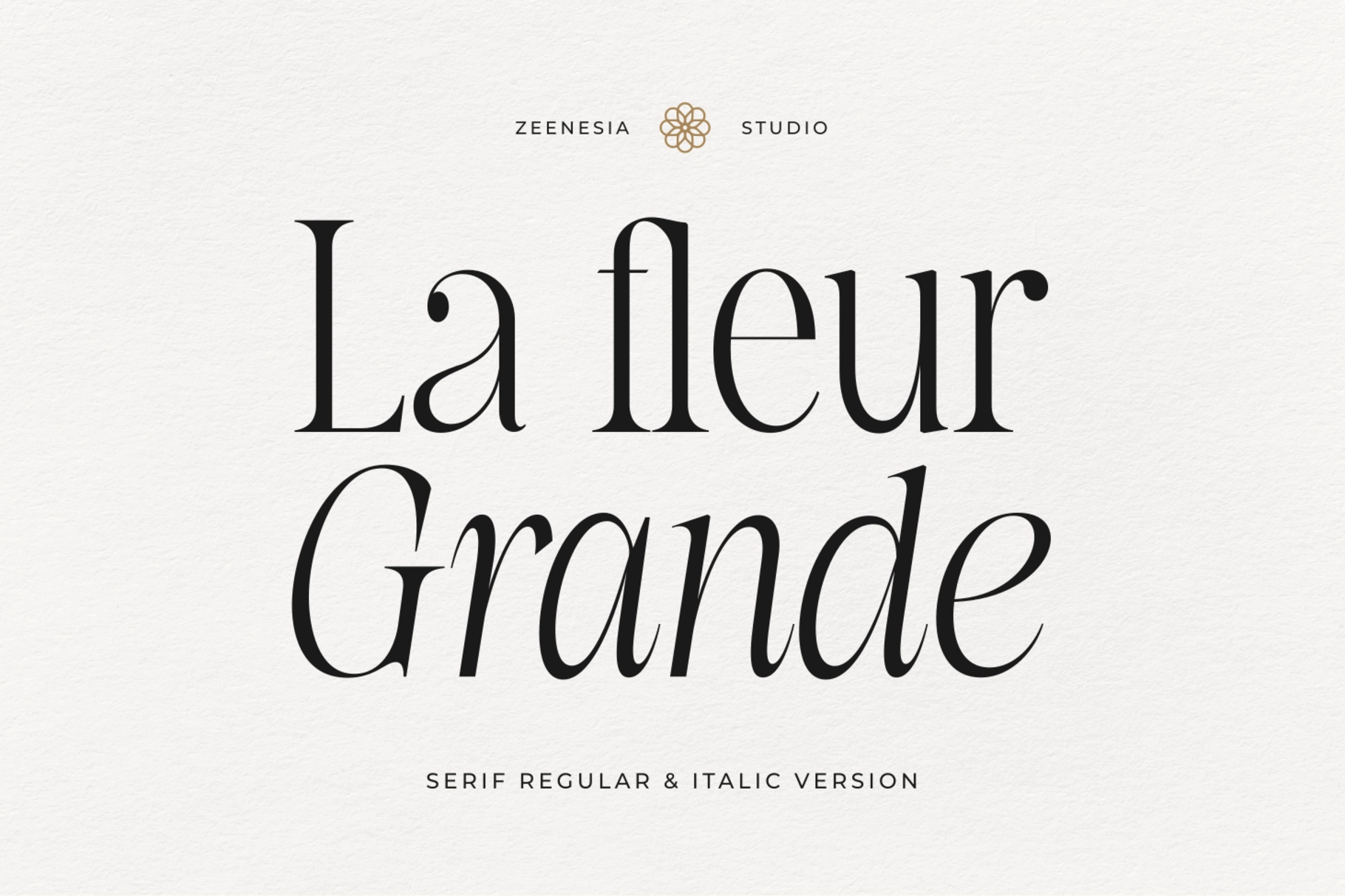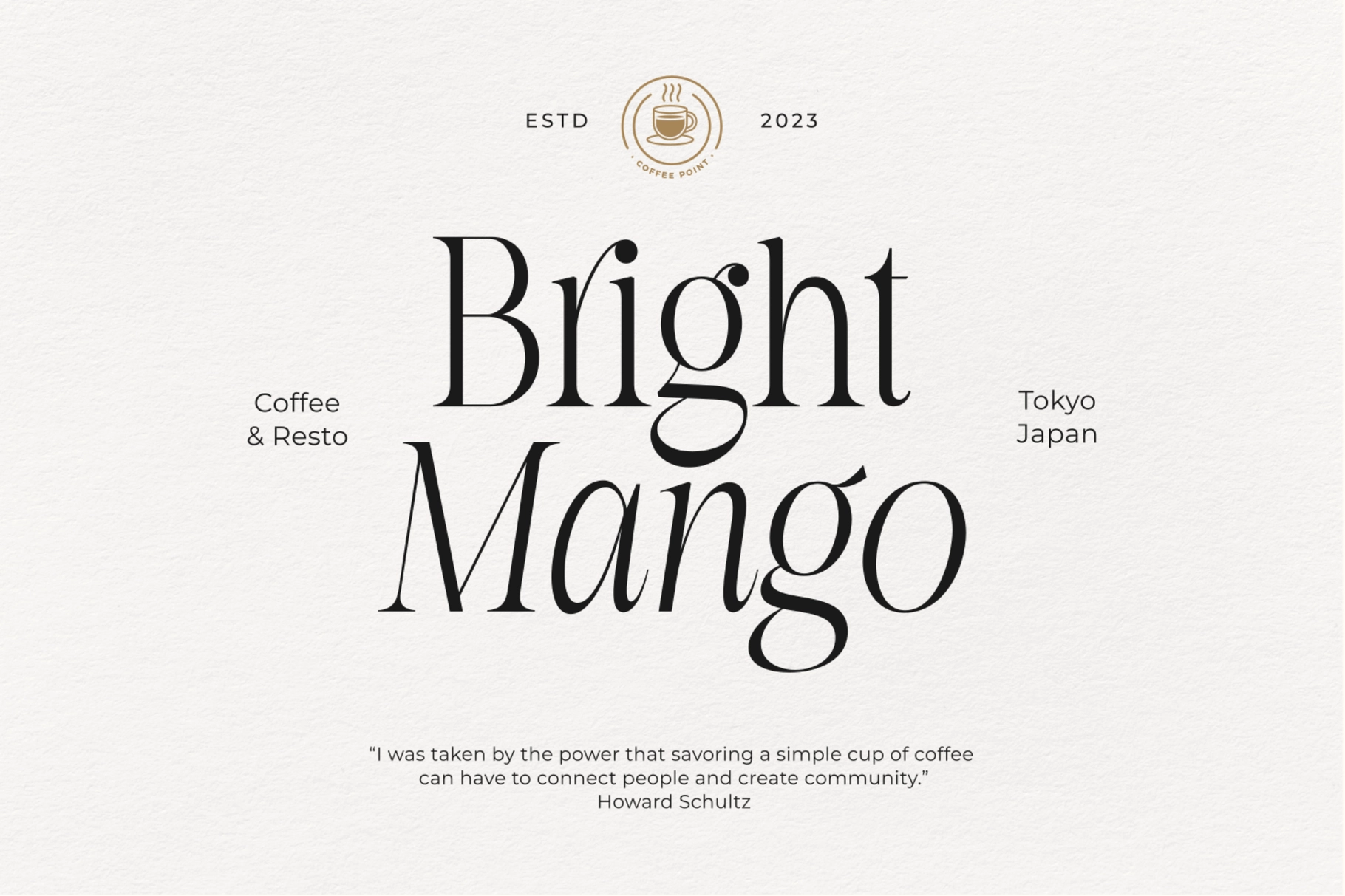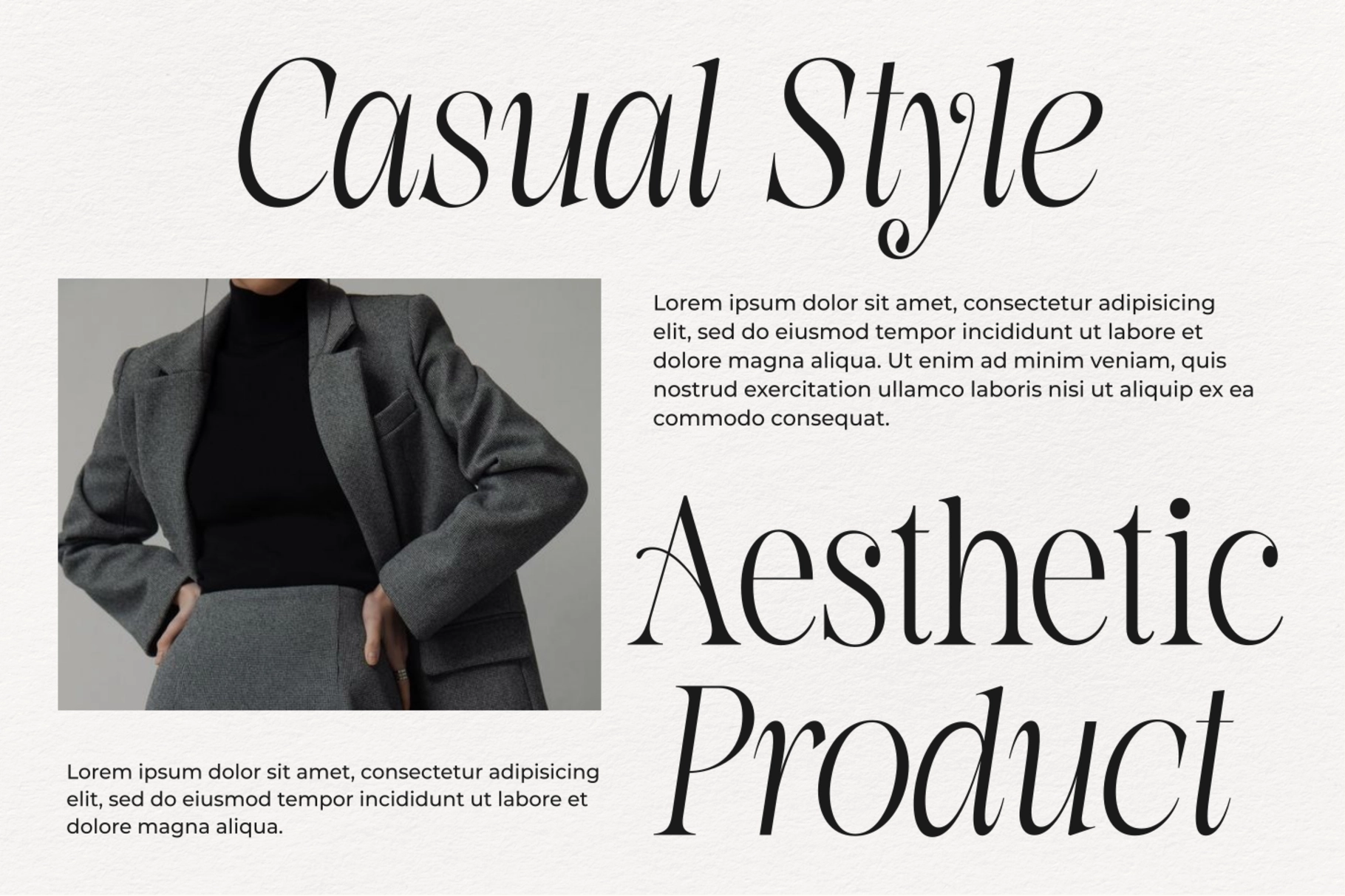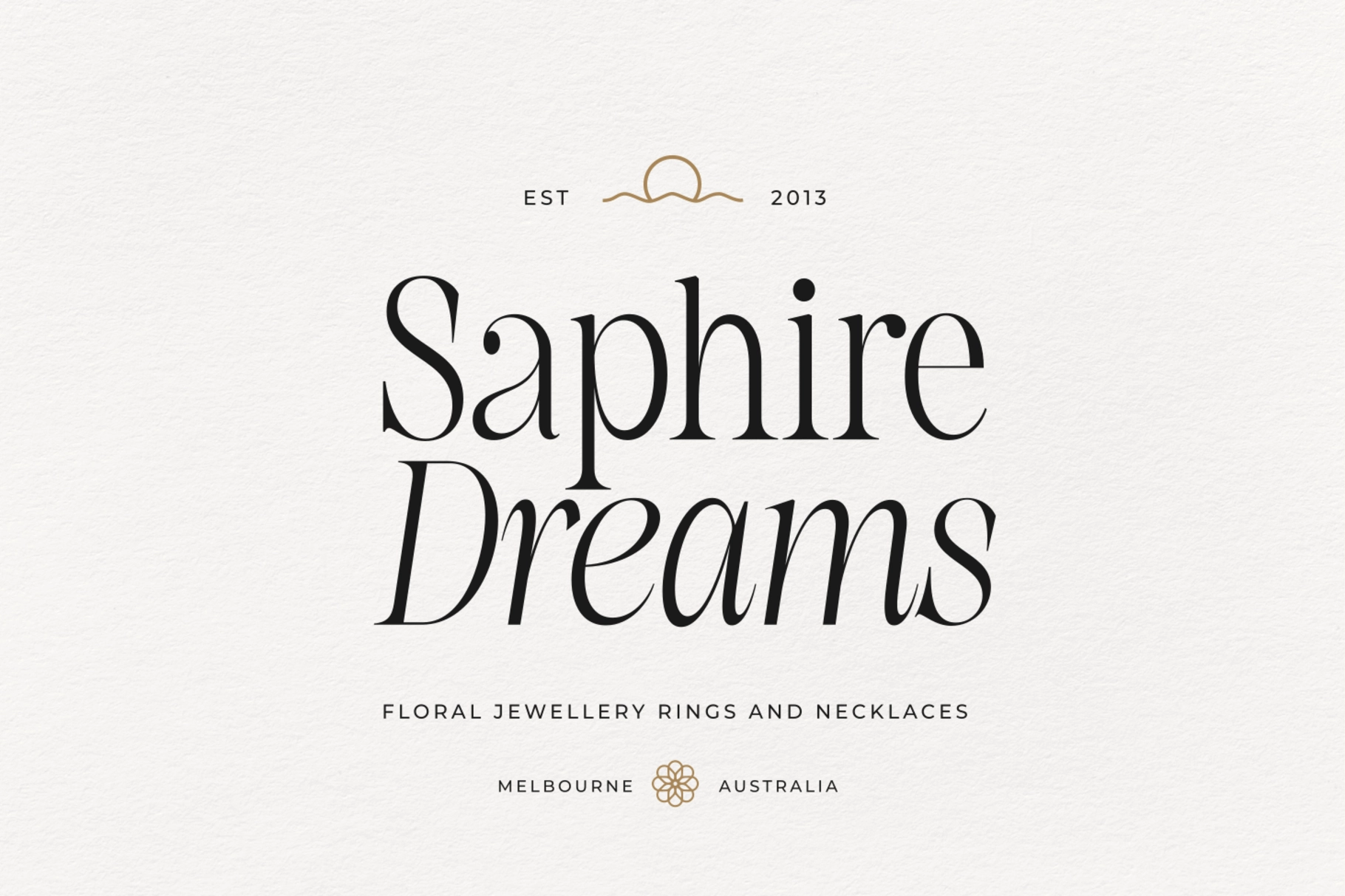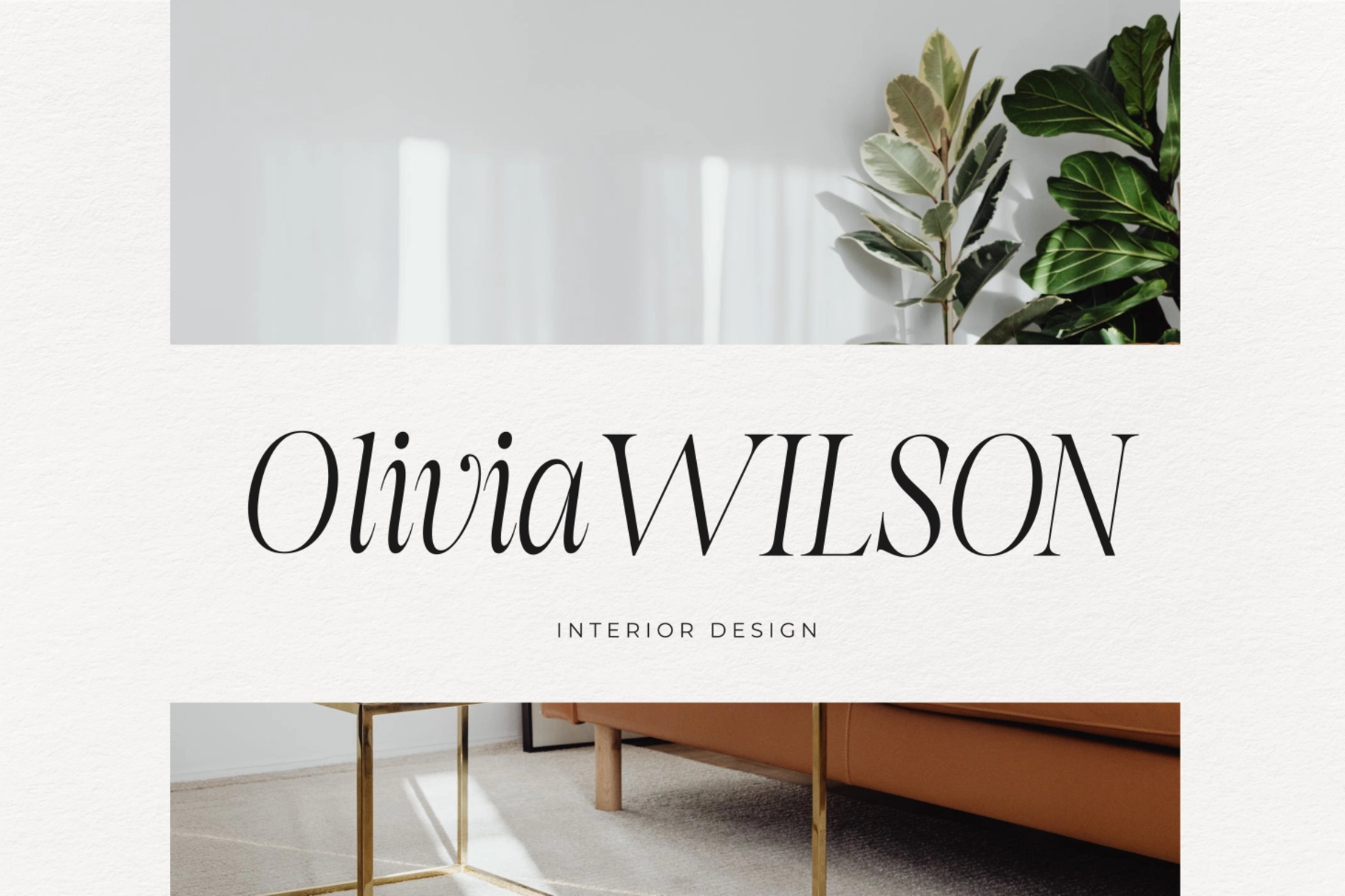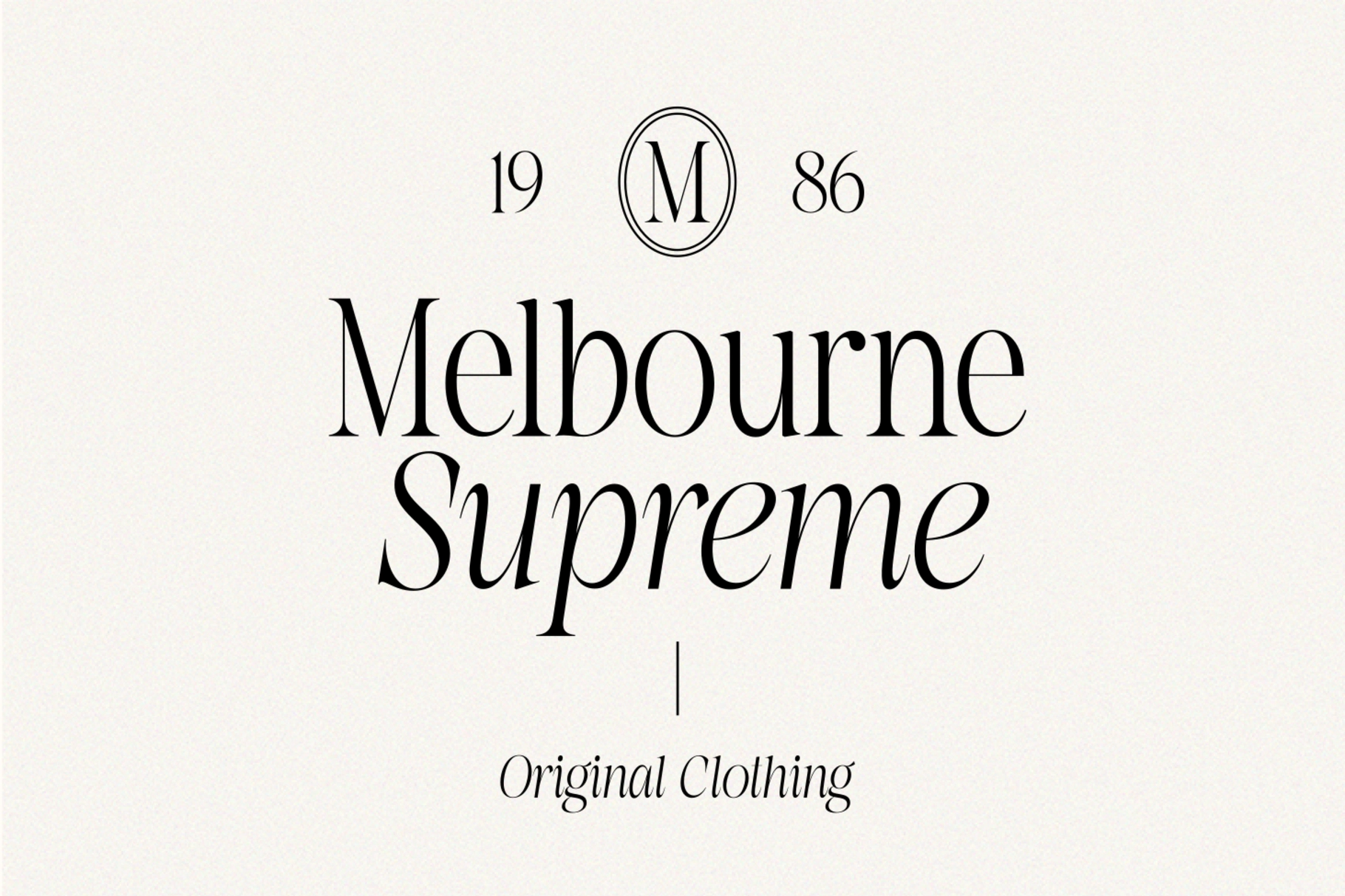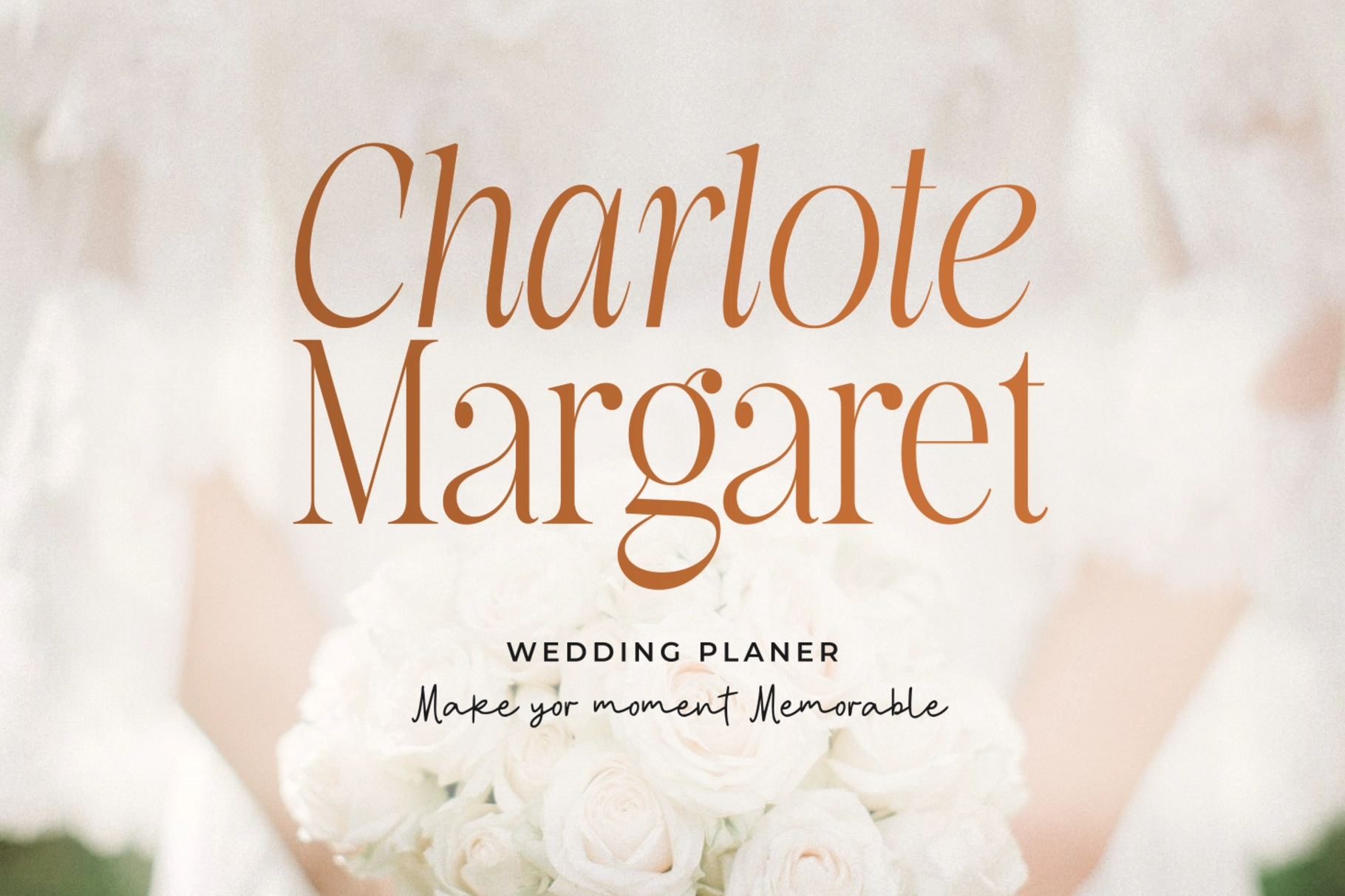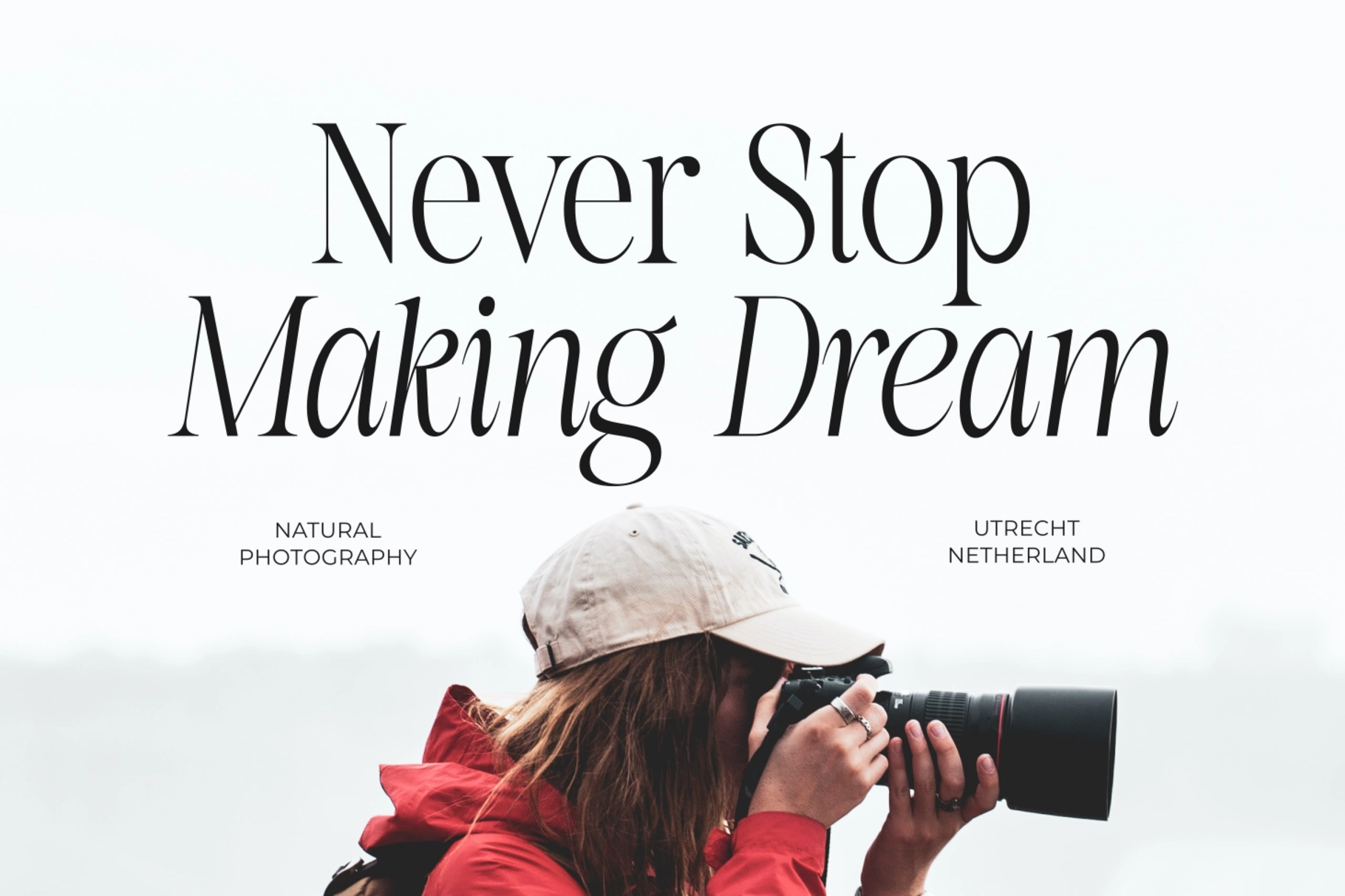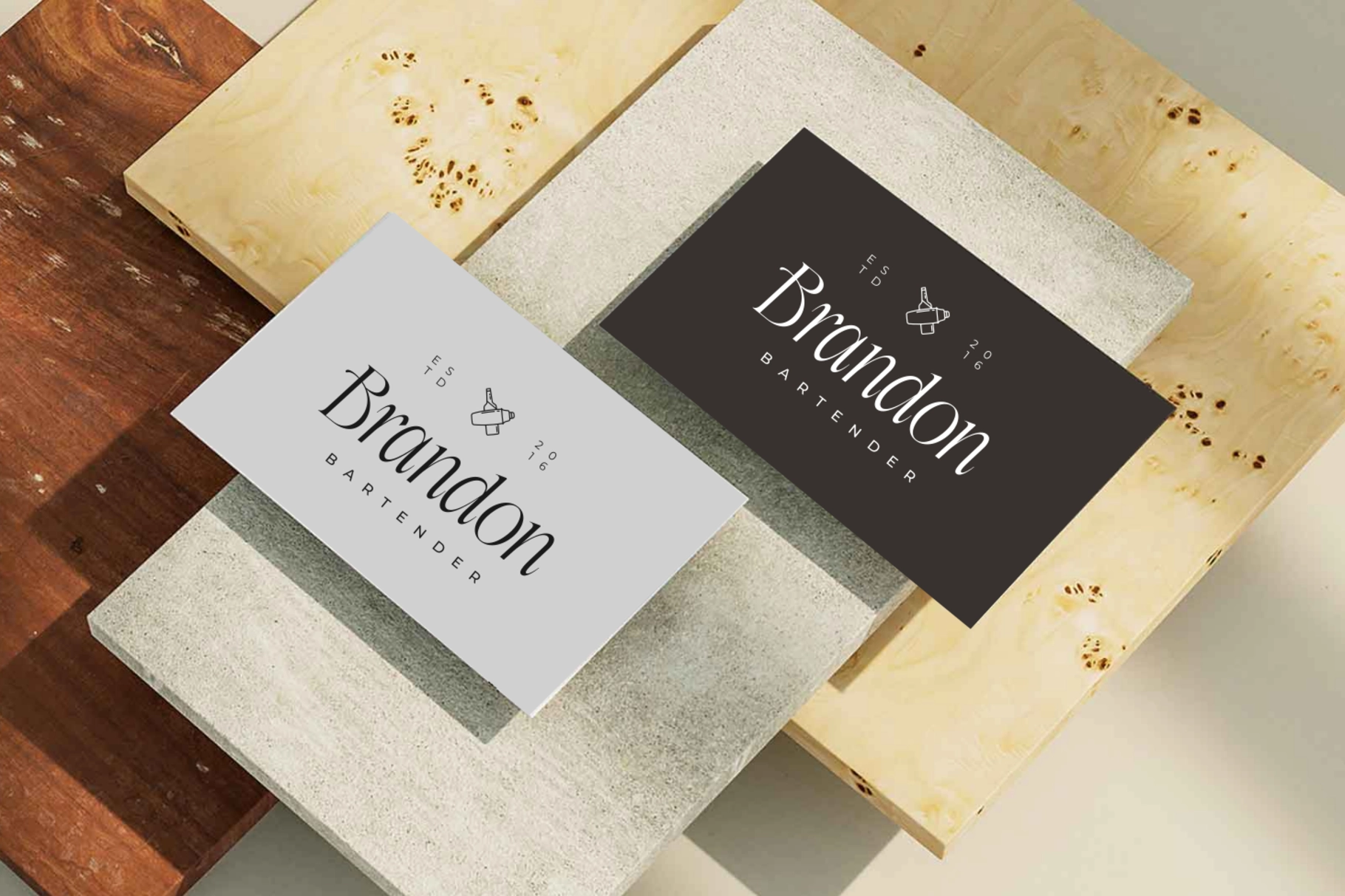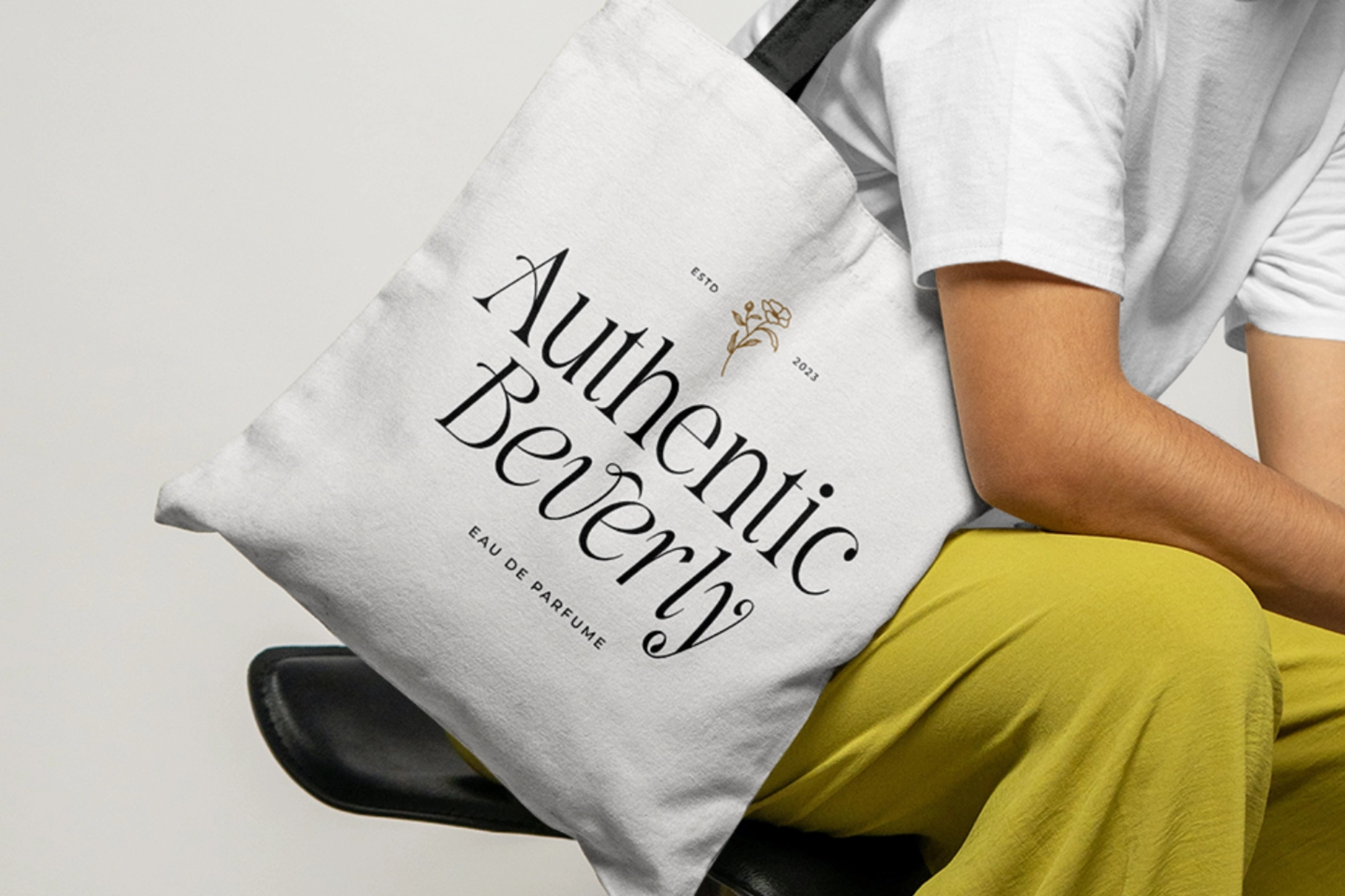
La Fleur Grande – Elegant Serif Font
La Fleur Grande carries the drama of a fashion-magazine masthead — a tall x-height, needle-thin hairlines set against thick vertical strokes, and swash capitals that curl like a brush stroke rather than a ruler line. Ligatures fuse ct, ft, and st into single connected shapes, and the italic leans harder into its curves, turning into a genuine script cousin instead of a slanted copy. It reads as an elegant serif font suited to headlines that take up real space on a page.
La Fleur Grande settles into fashion editorials, bridal branding, and packaging that wants a couture edge, and it still holds its character down to a few words in a logotype. Use it for magazine covers, wedding invitation suites, boutique branding, perfume and cosmetics packaging, and pull quotes that call for a flourish of swash capitals.